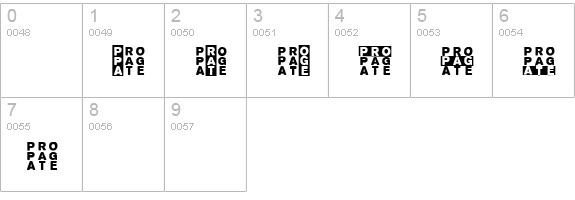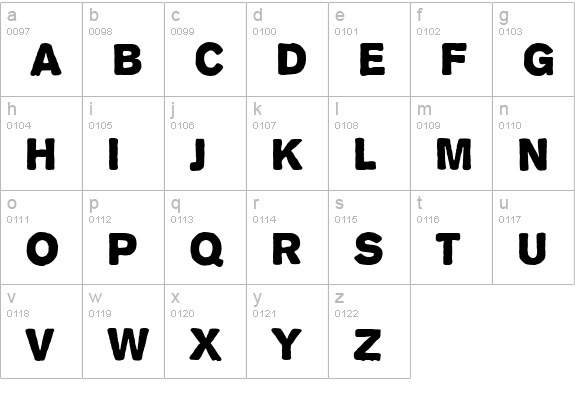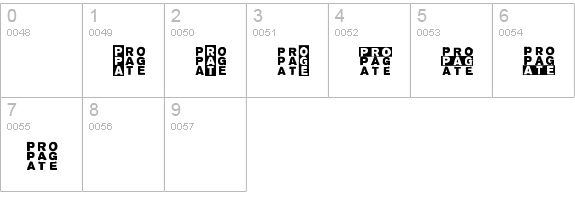
Propaganda Font Details
Propaganda font is a bold and impactful typeface that exudes power and authority. With its strong lines and sharp angles, this font is perfect for making a statement and commanding attention. Whether you're creating posters, banners, or headlines, Propaganda font will ensure your message is heard loud and clear. The best part? Propaganda font is completely free to download at FontsMarket.com. That's right, you can access this dynamic font at no cost, making it a valuable addition to your design toolkit. Don't miss out on the opportunity to use Propaganda font to elevate your projects and make a lasting impression. Download it today and start creating visually striking designs that leave a lasting impact.